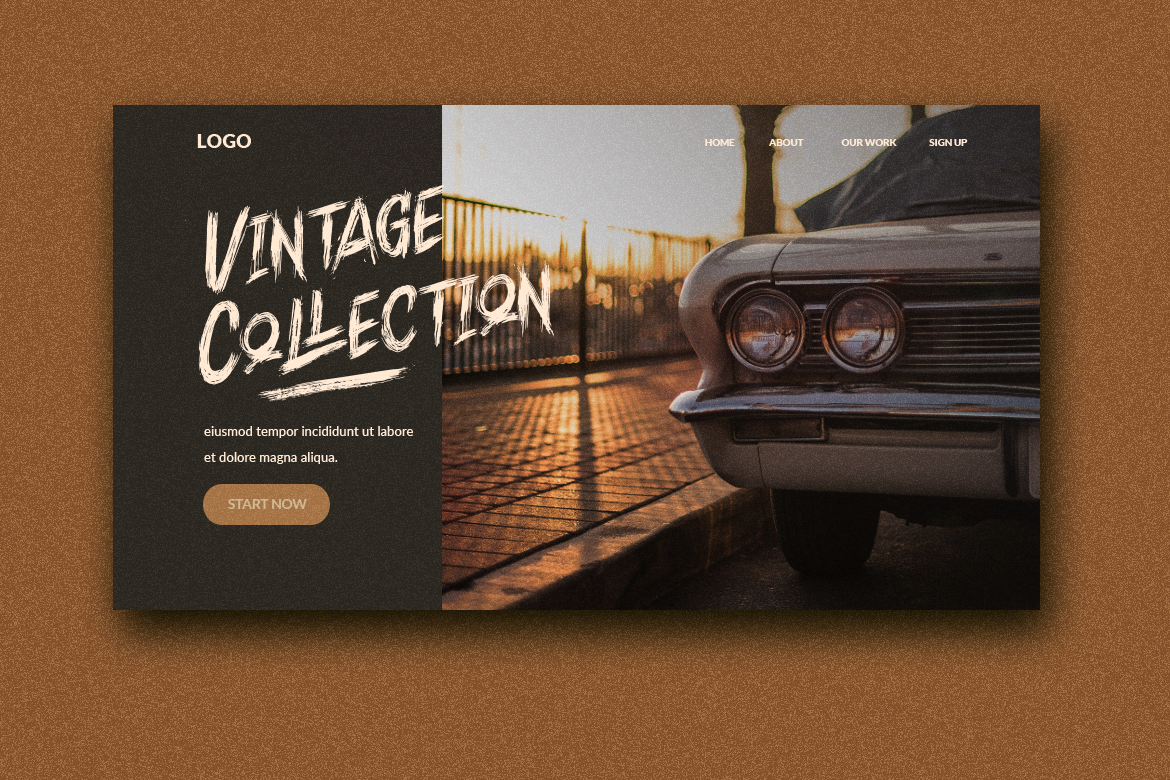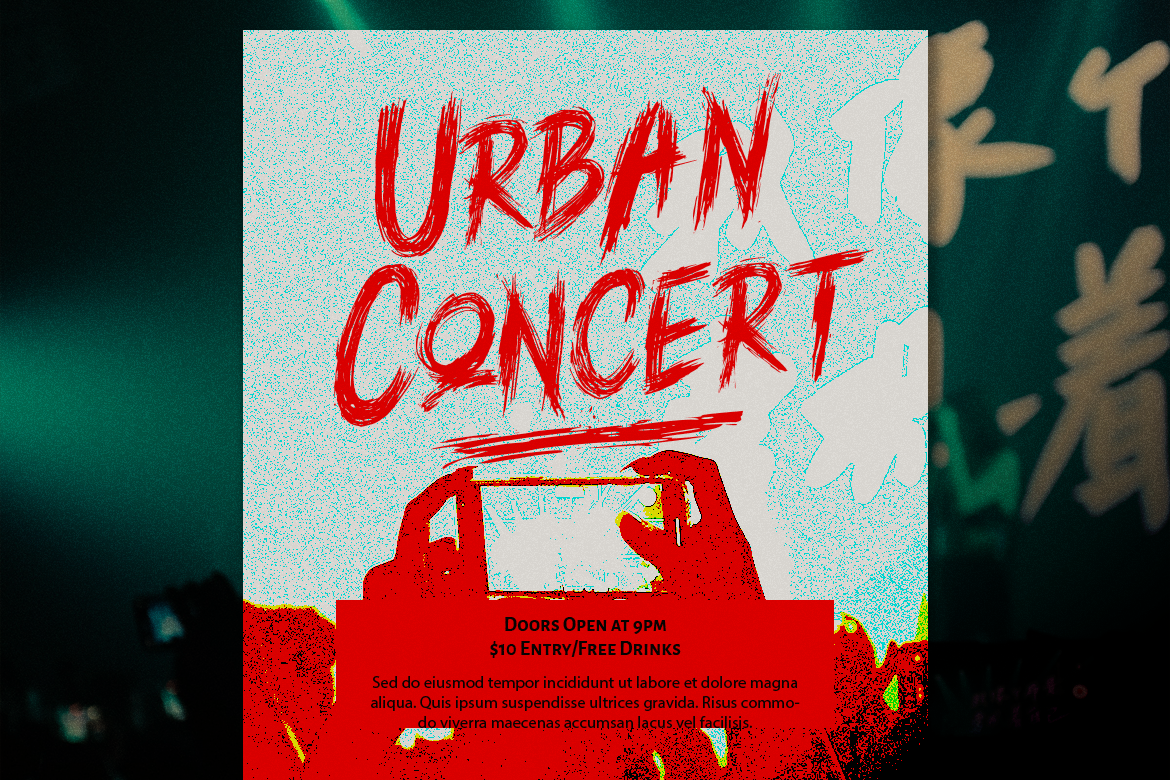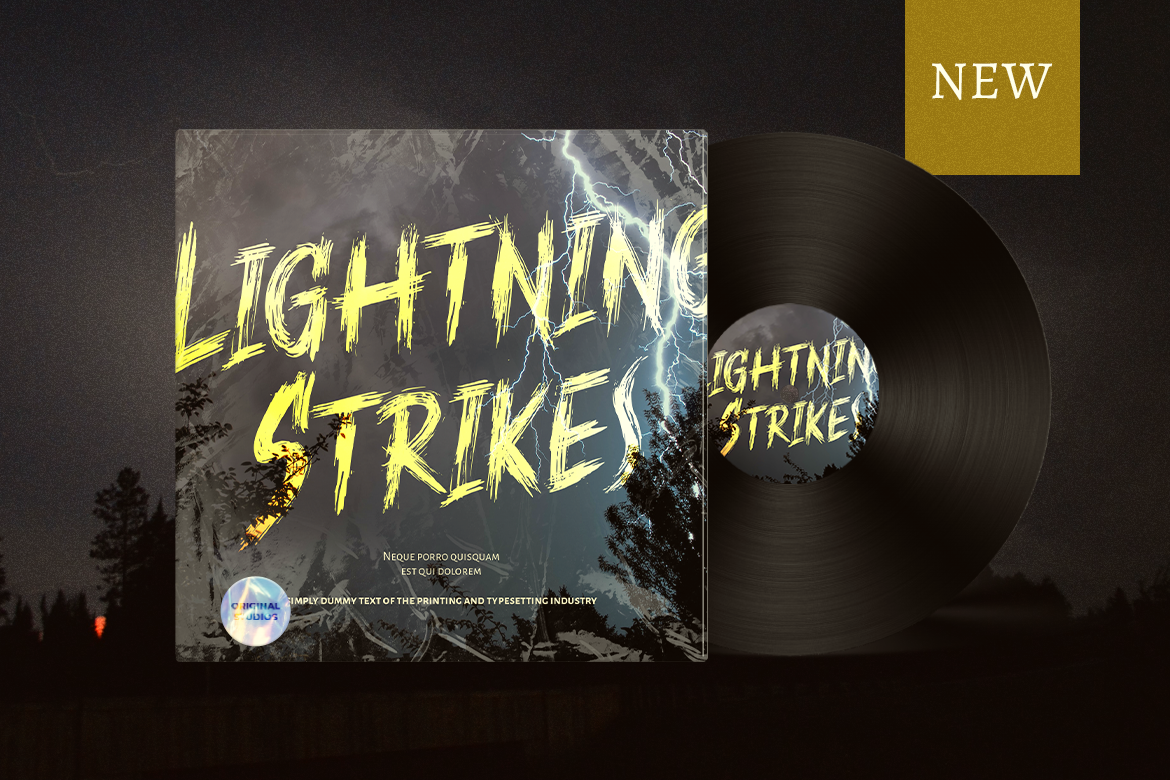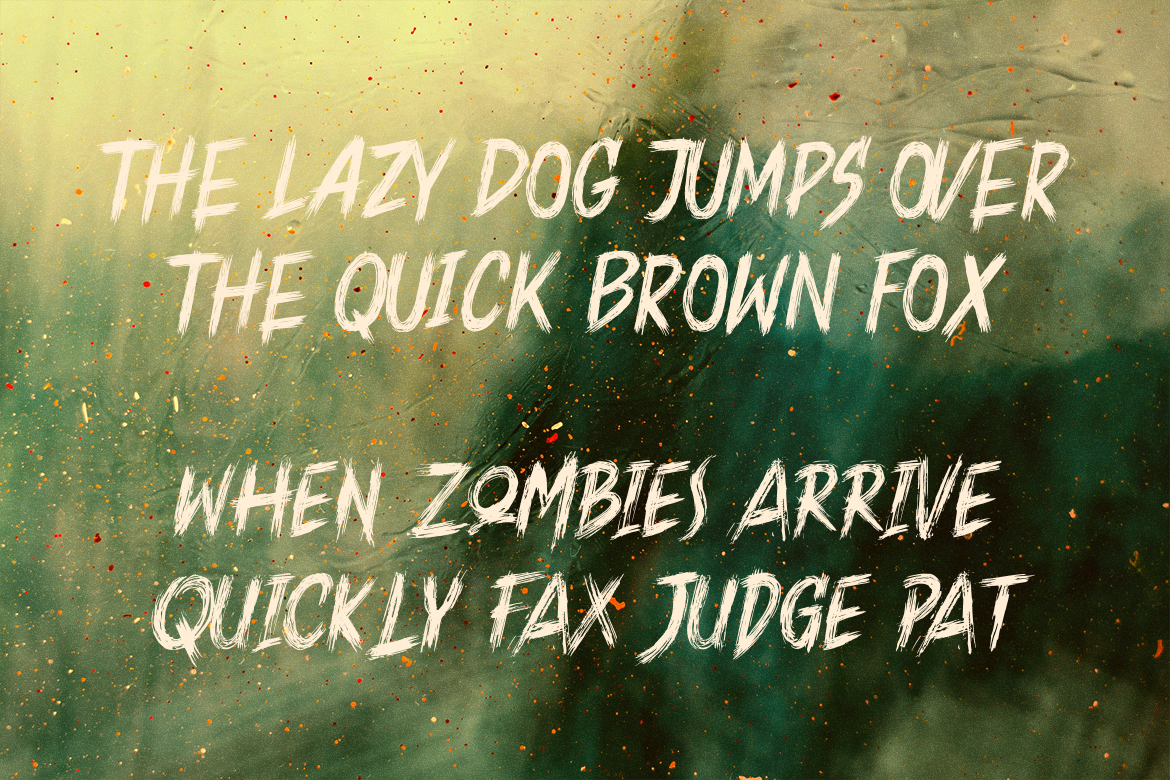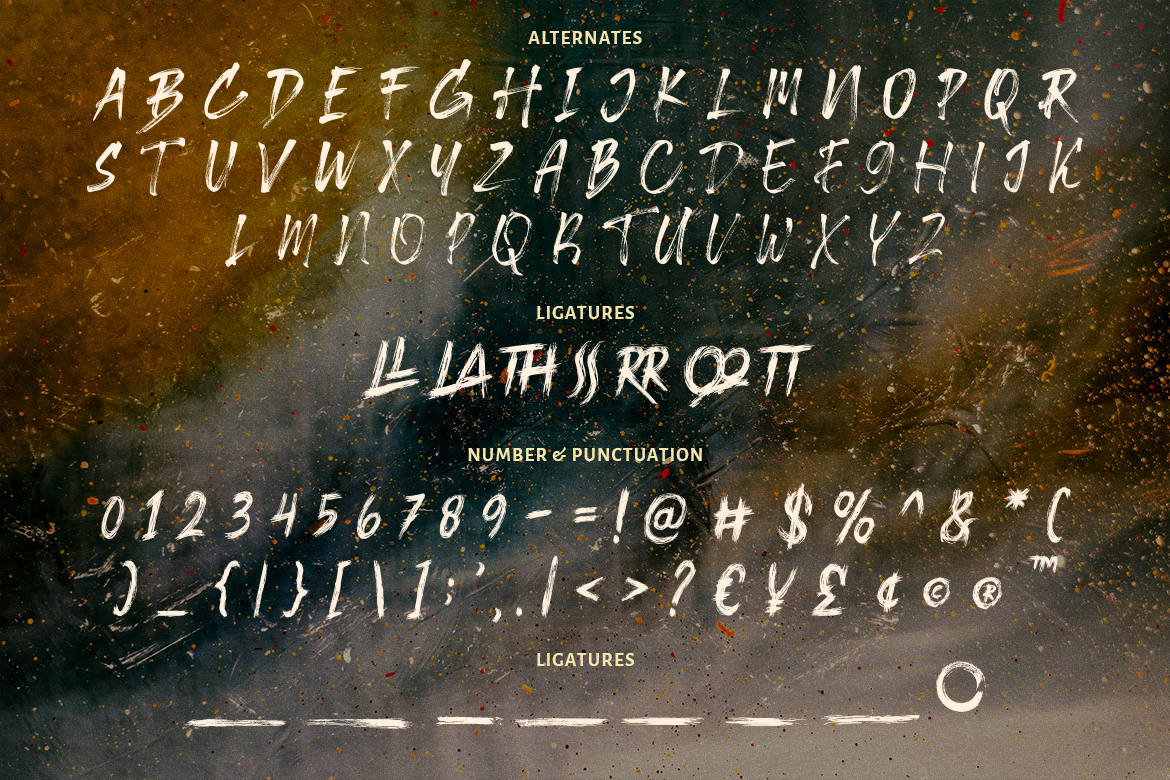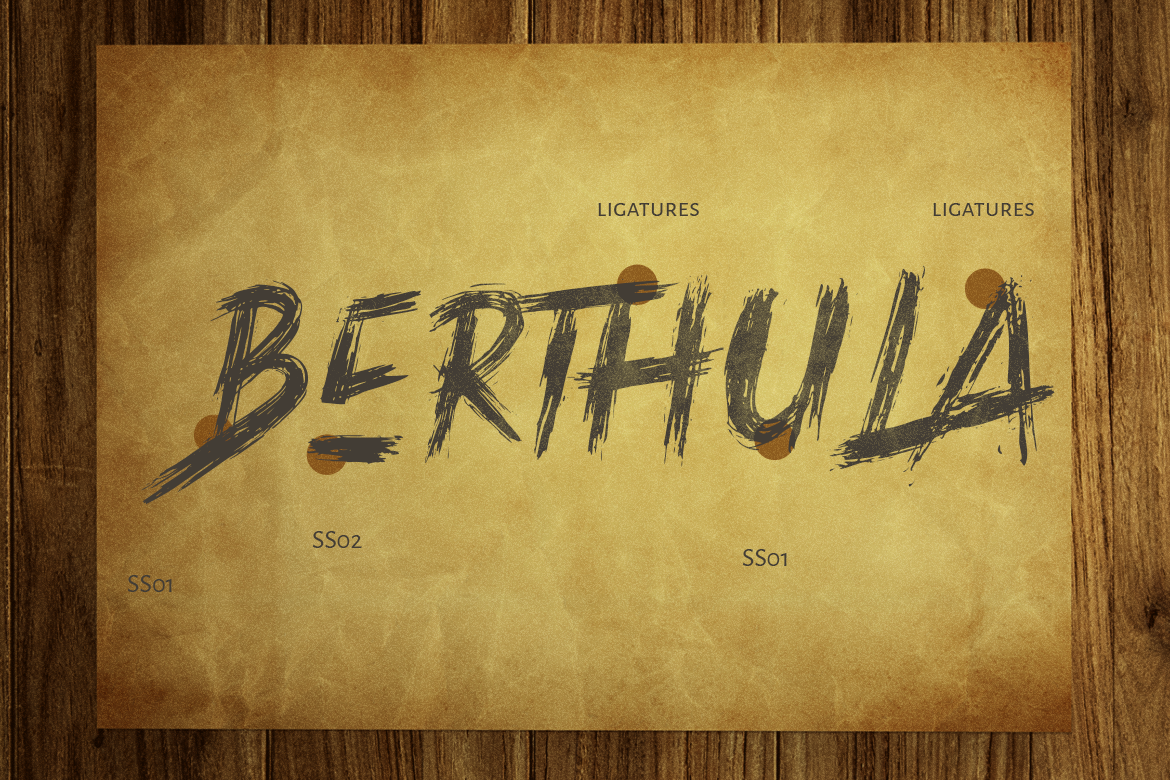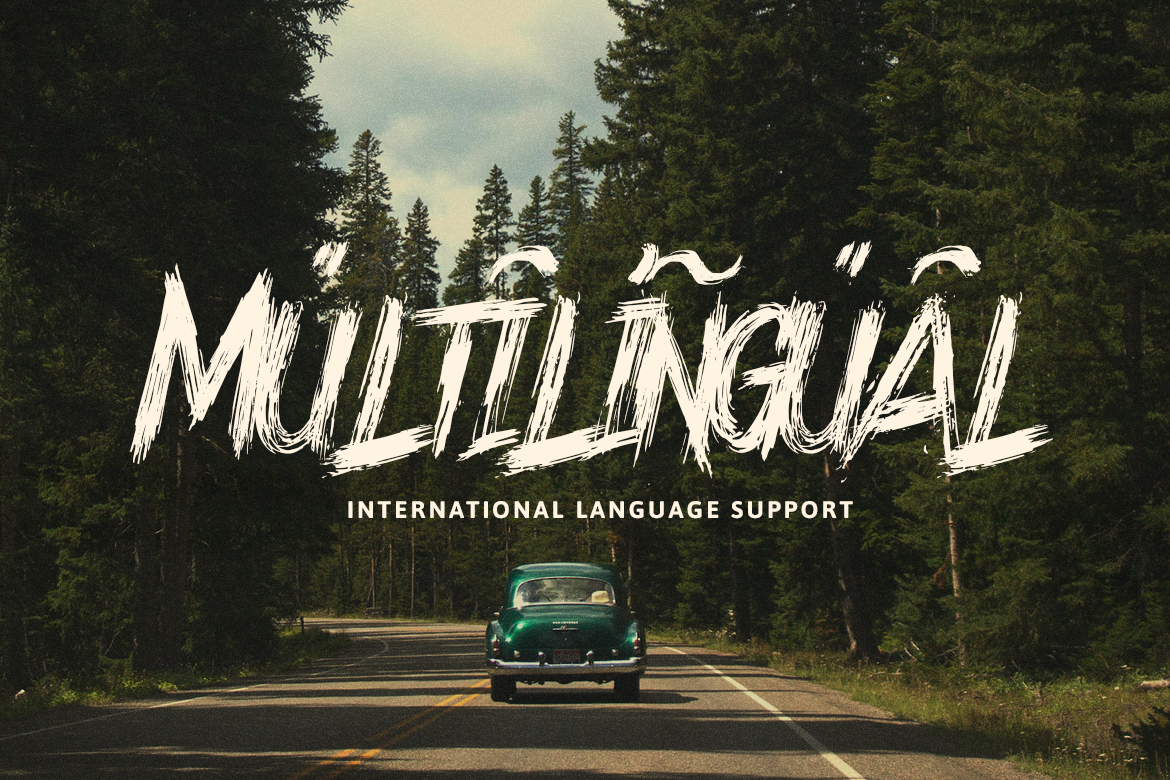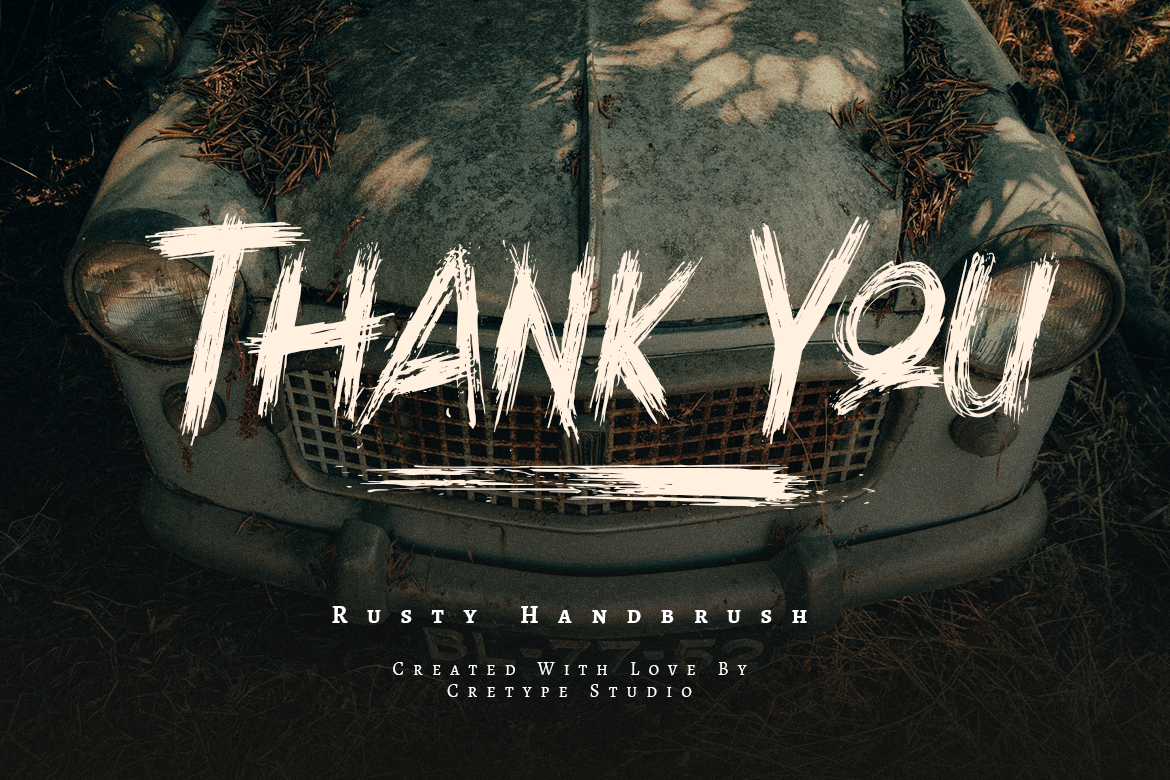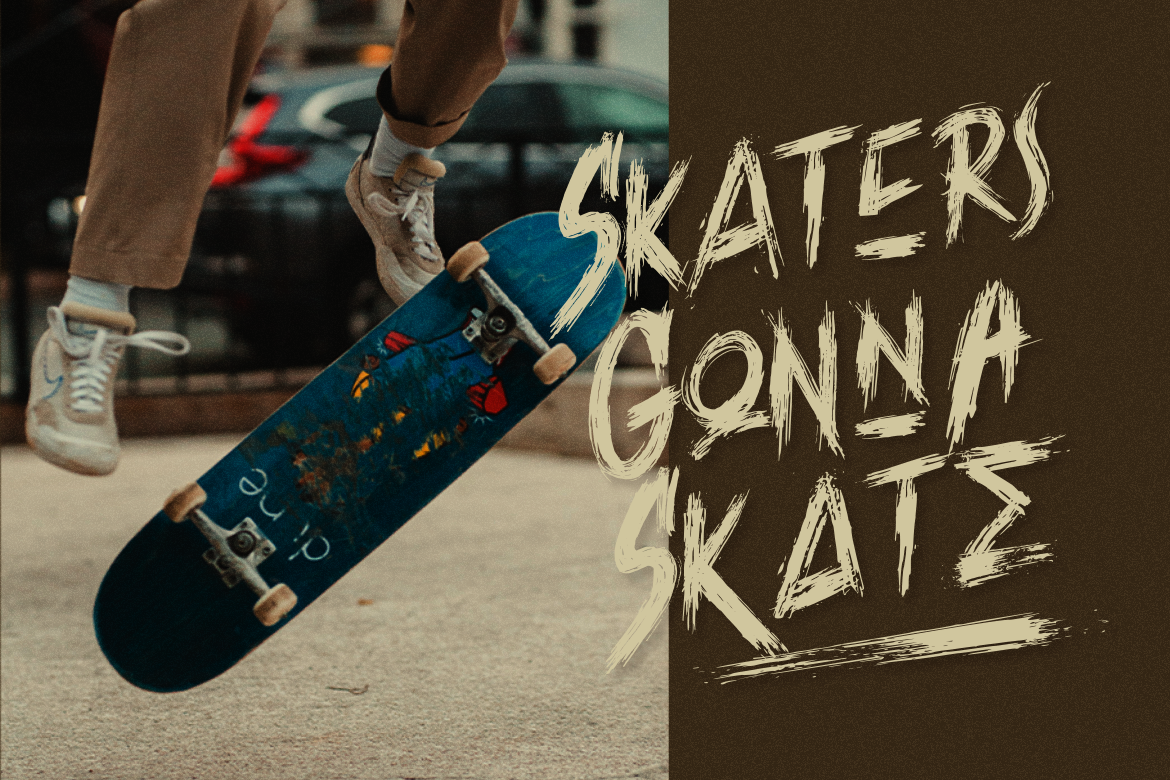
Three words that describe Jacksonville are rusty, strong, and fierce. Those characteristics of Jacksonville would make your design project more attractive and easily remembered by your audience!
Jacksonville is perfect for branding projects, logo, wedding designs, social media posts, advertisements, product packaging, product designs, label, photography, watermark, invitation, stationery and any projects that need handwriting taste.
Jacksonville Hand Brush